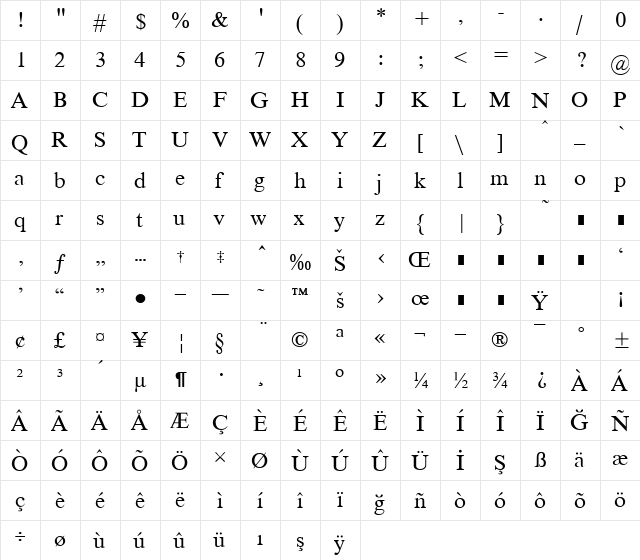
TmsTr Regular
Design Context for TmsTr Typeface
TmsTr is a composed and adaptable typeface that performs quietly and consistently across a wide range of design contexts.